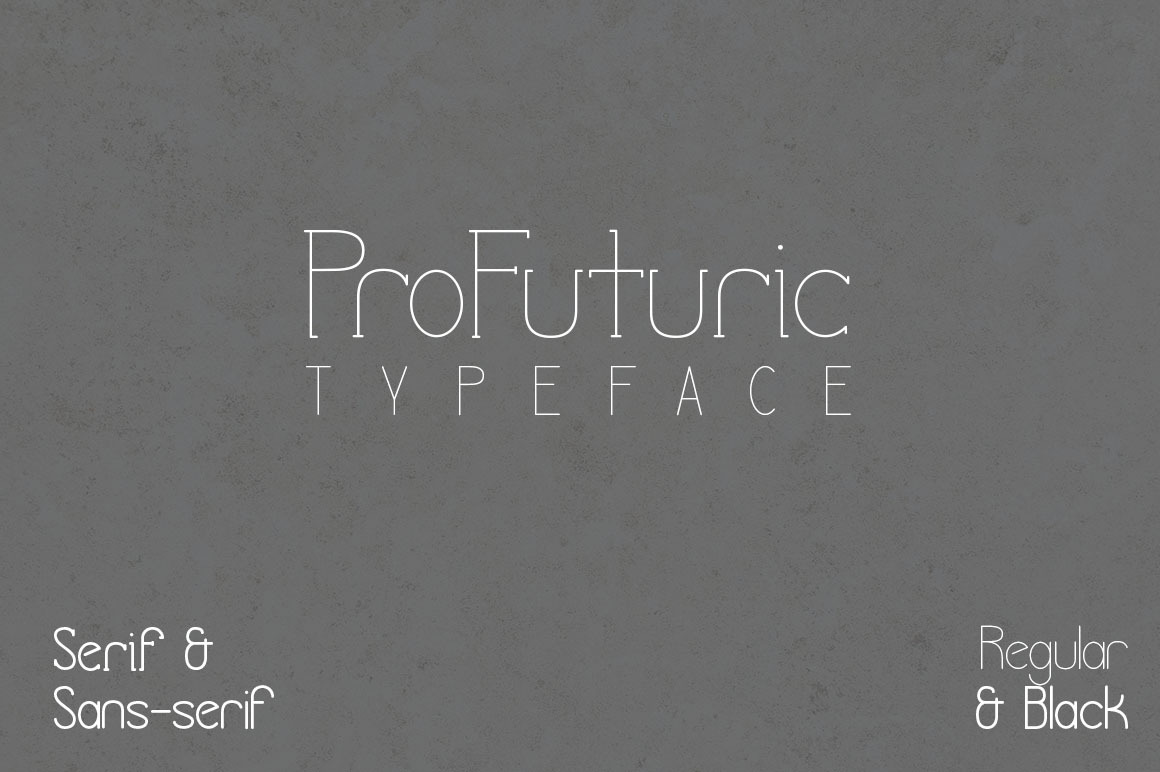
ProFuturic Typeface
ProFuturic is a modern typeface designed to be subtle but memorable.
Including both a serif and a sans-serif version that work nicely together. See the product images above for an idea of how they appear together.
Each style of font also comes in two weights, regular and black.